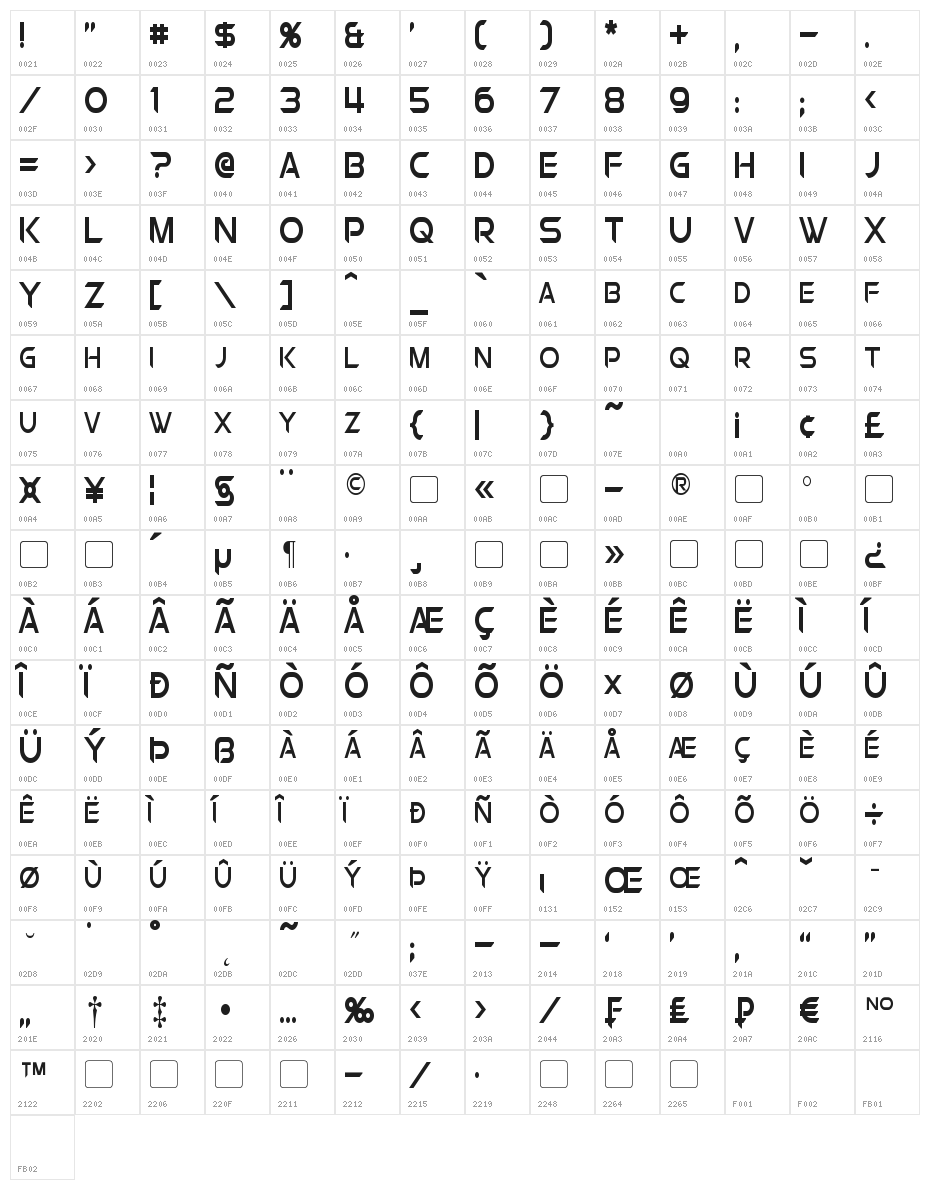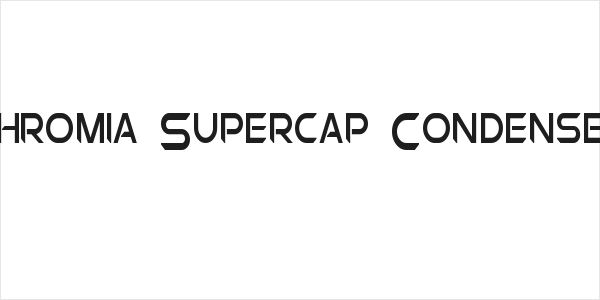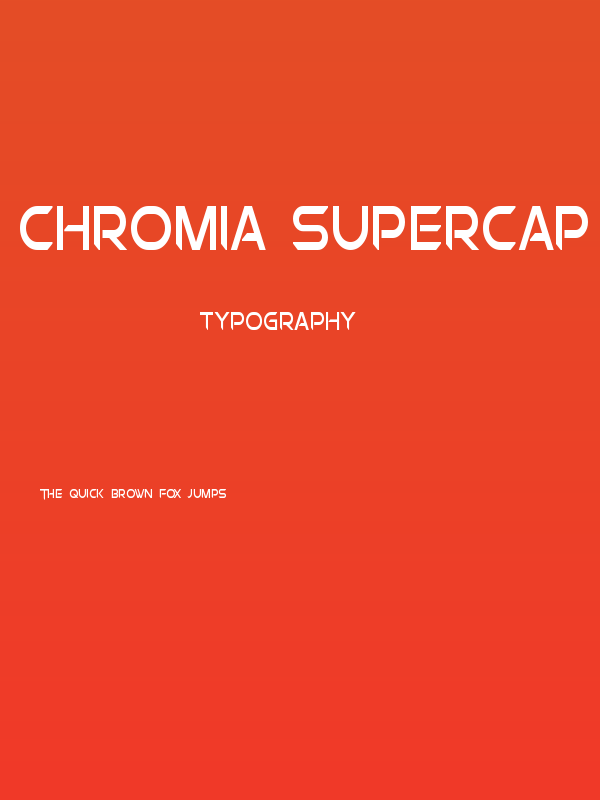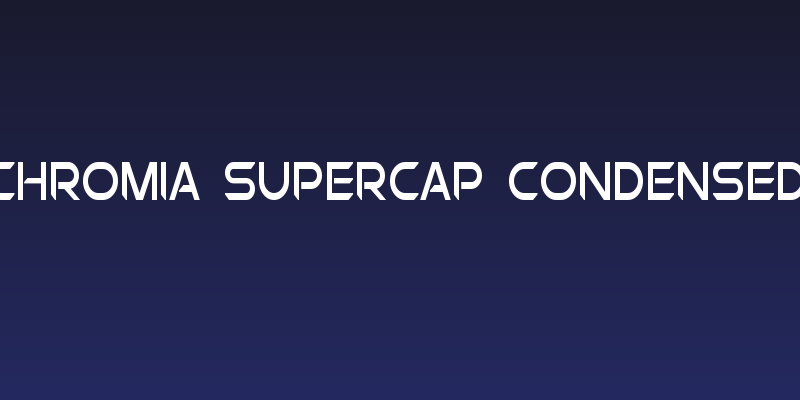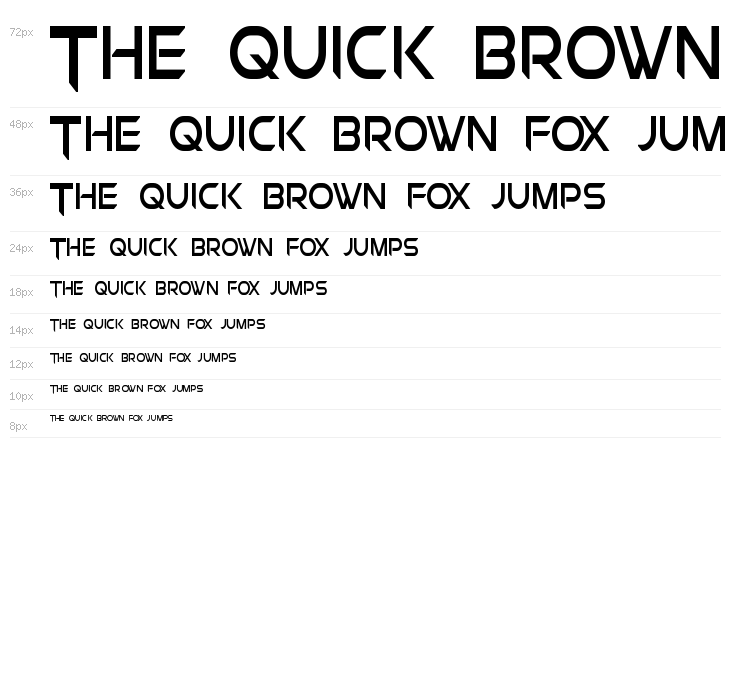
Chromia Supercap Condensed Font
Chromia Supercap Condensed Description
This font features a bold and futuristic design with sharp, angular edges and a condensed structure. The uppercase letters are uniform in height, creating a cohesive and streamlined appearance. The numerals are distinct and easily readable, maintaining the geometric style. Special characters are designed to match the overall aesthetic, providing a consistent look across all glyphs. The font's modern and sleek design makes it suitable for projects that require a contemporary and edgy feel.
| Proposed Projects | Ideal for tech branding, sci-fi themed designs, modern posters, and innovative product packaging. |